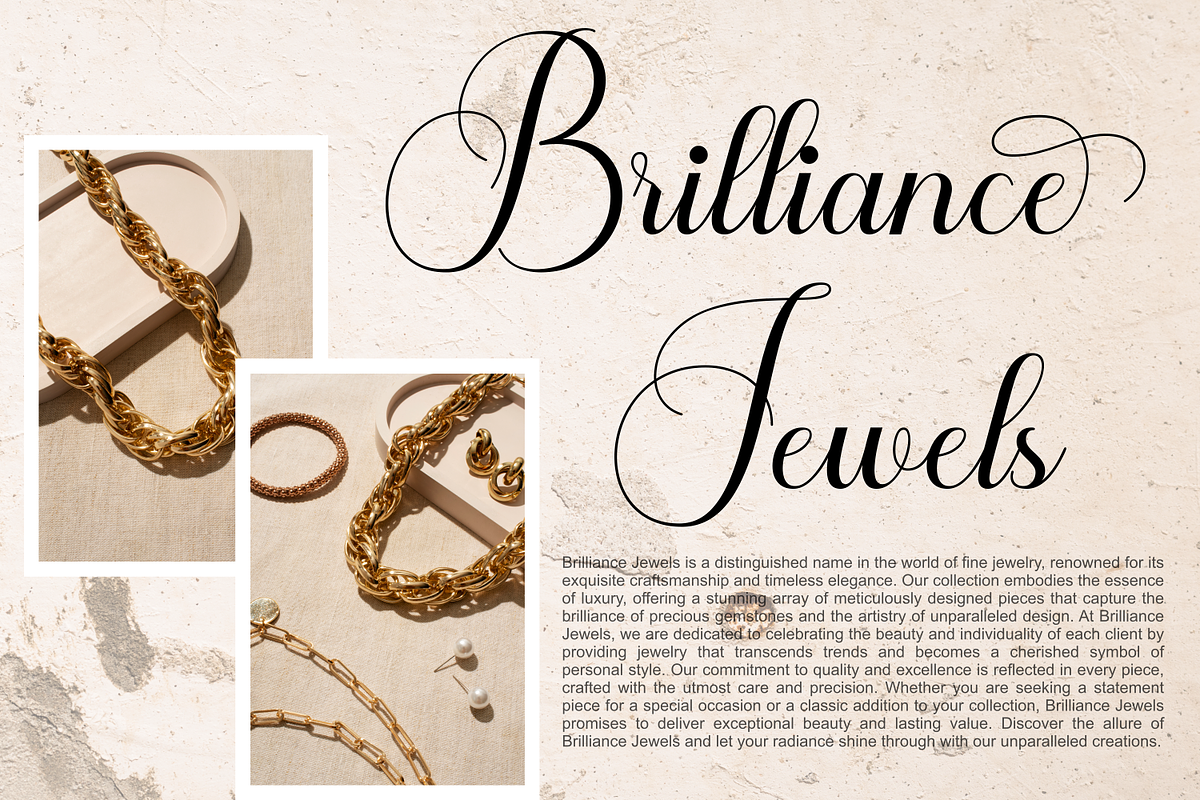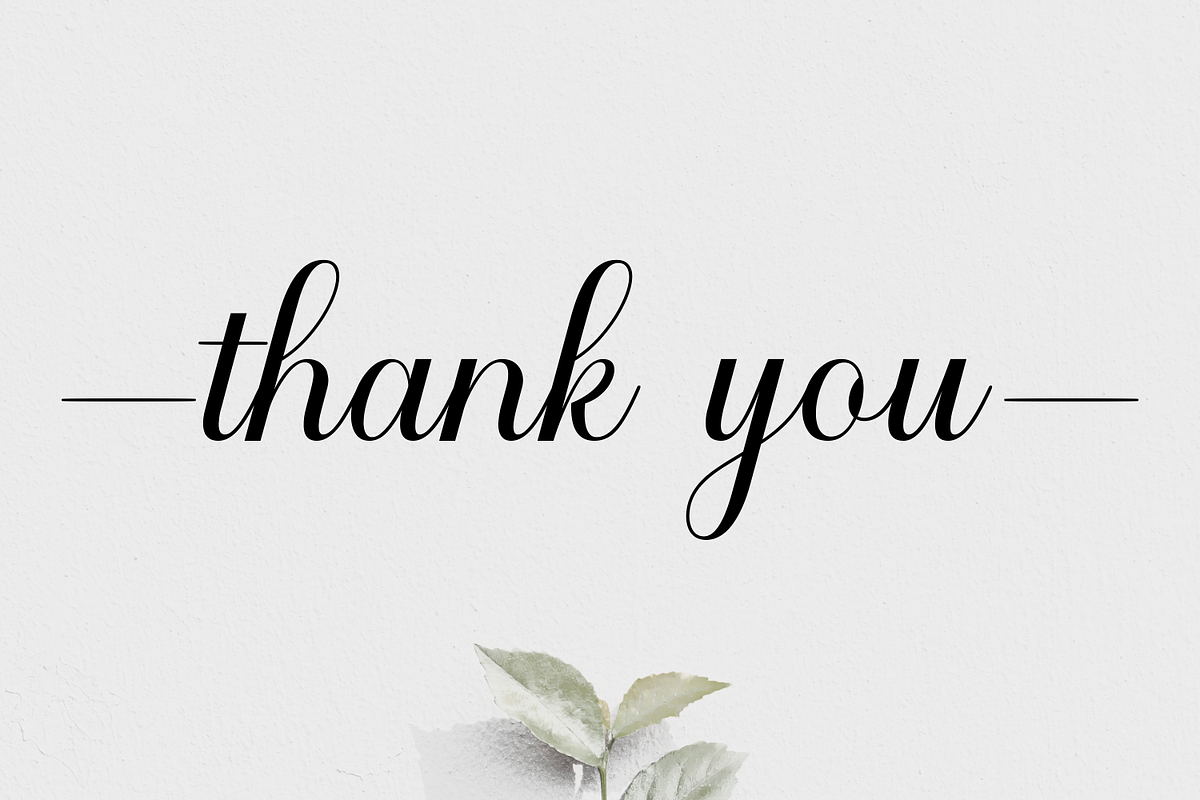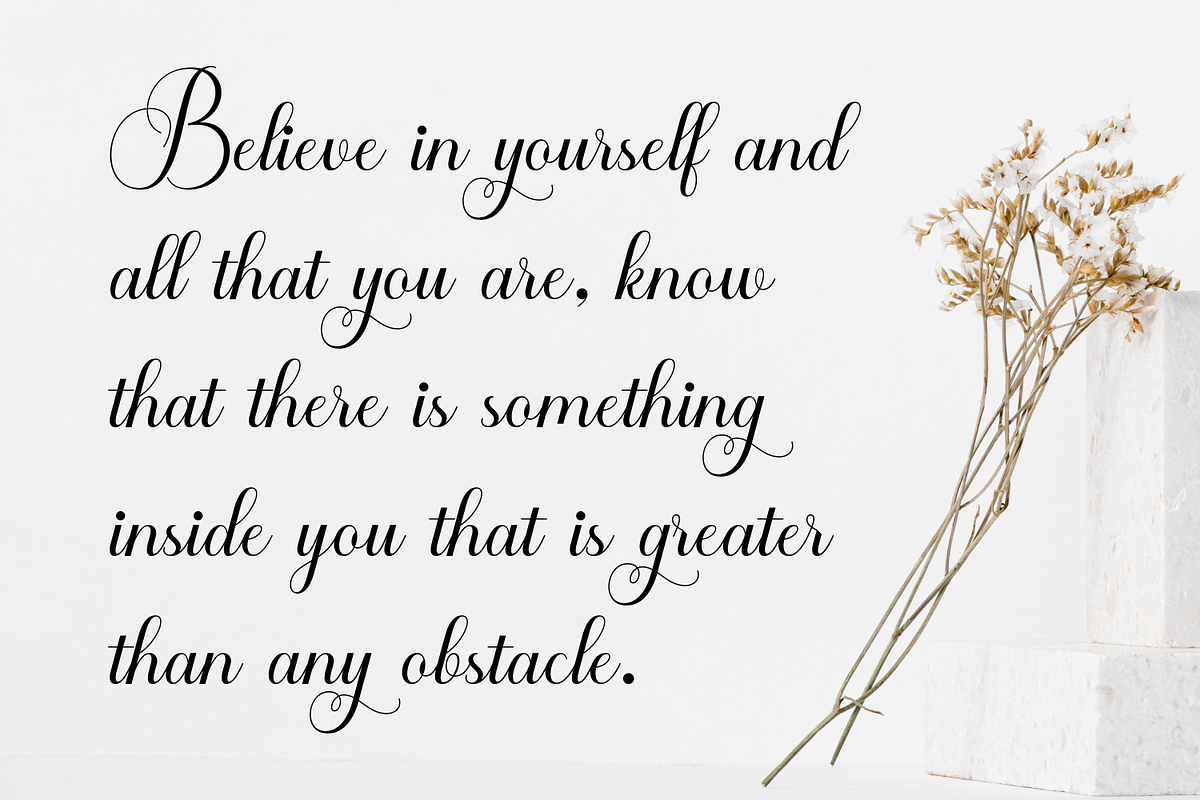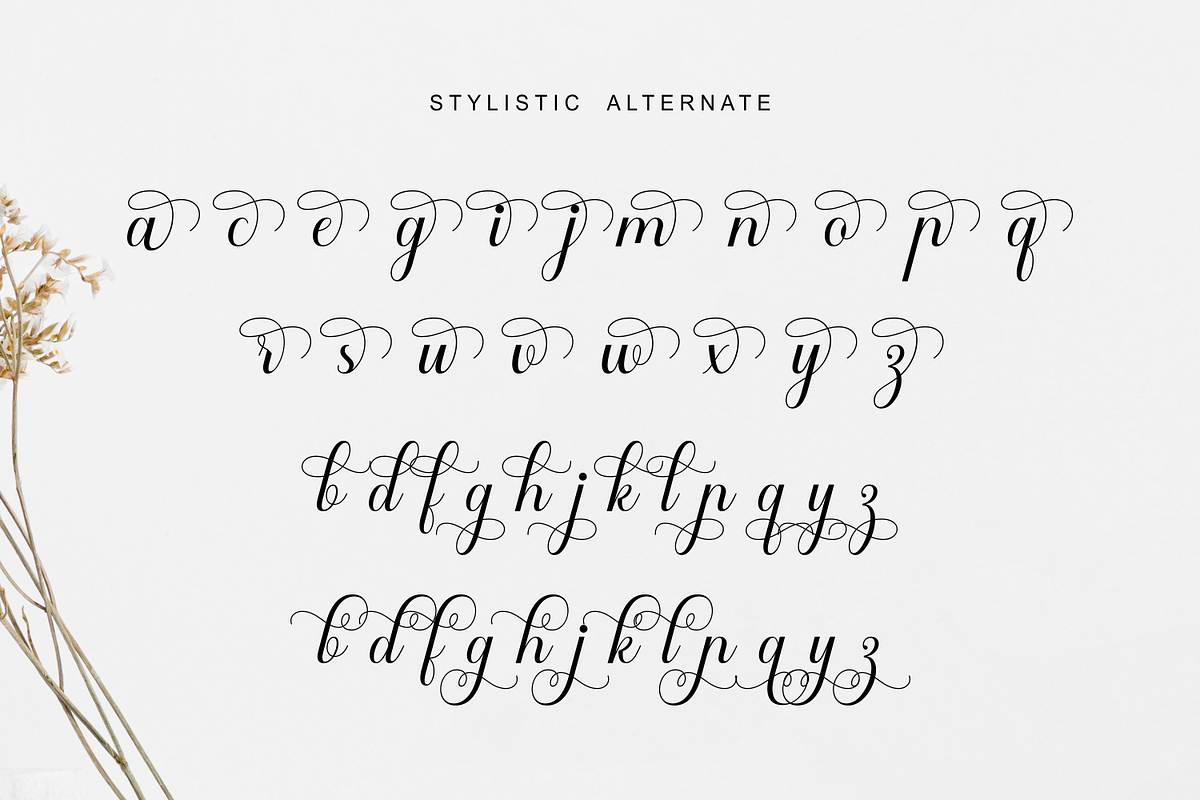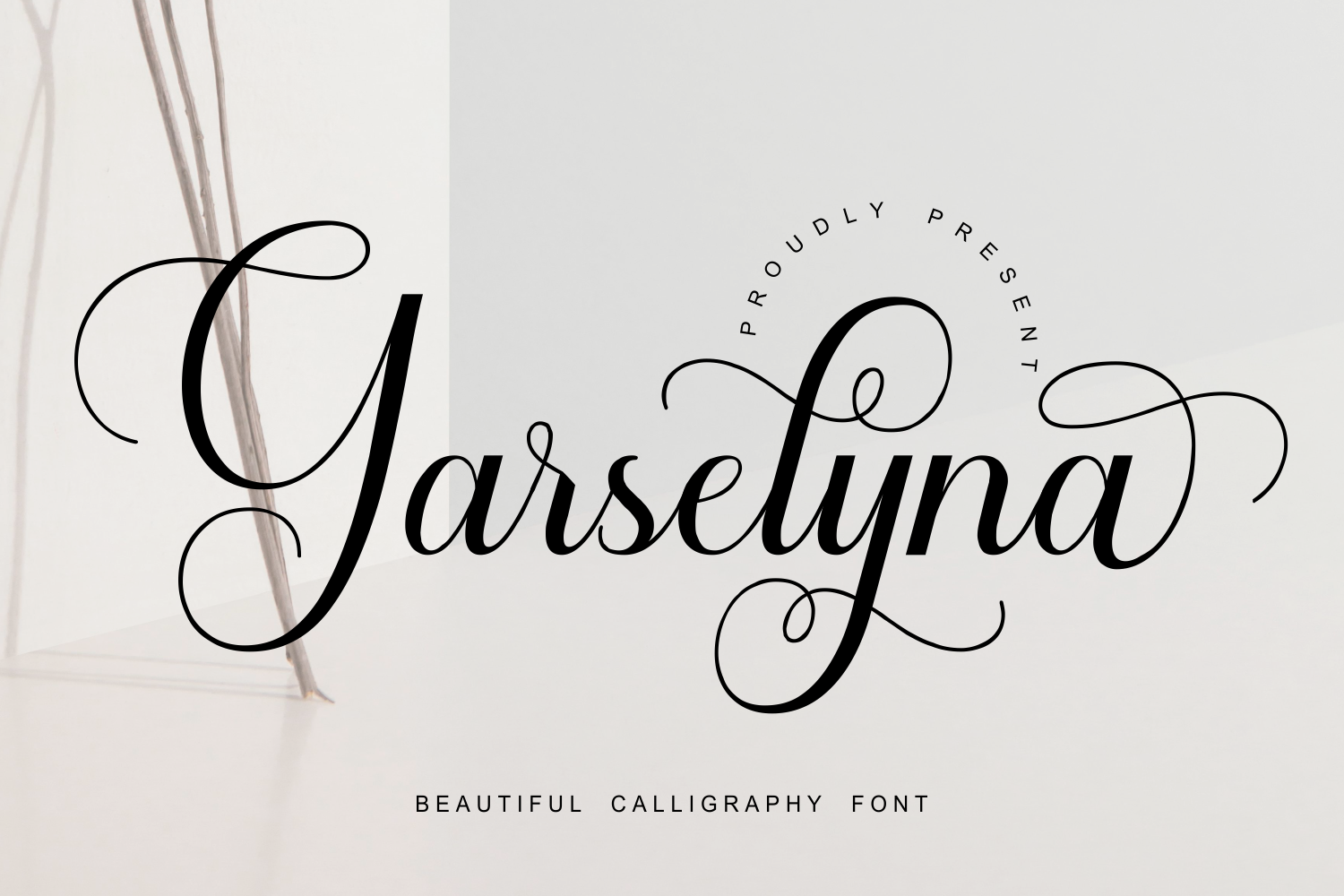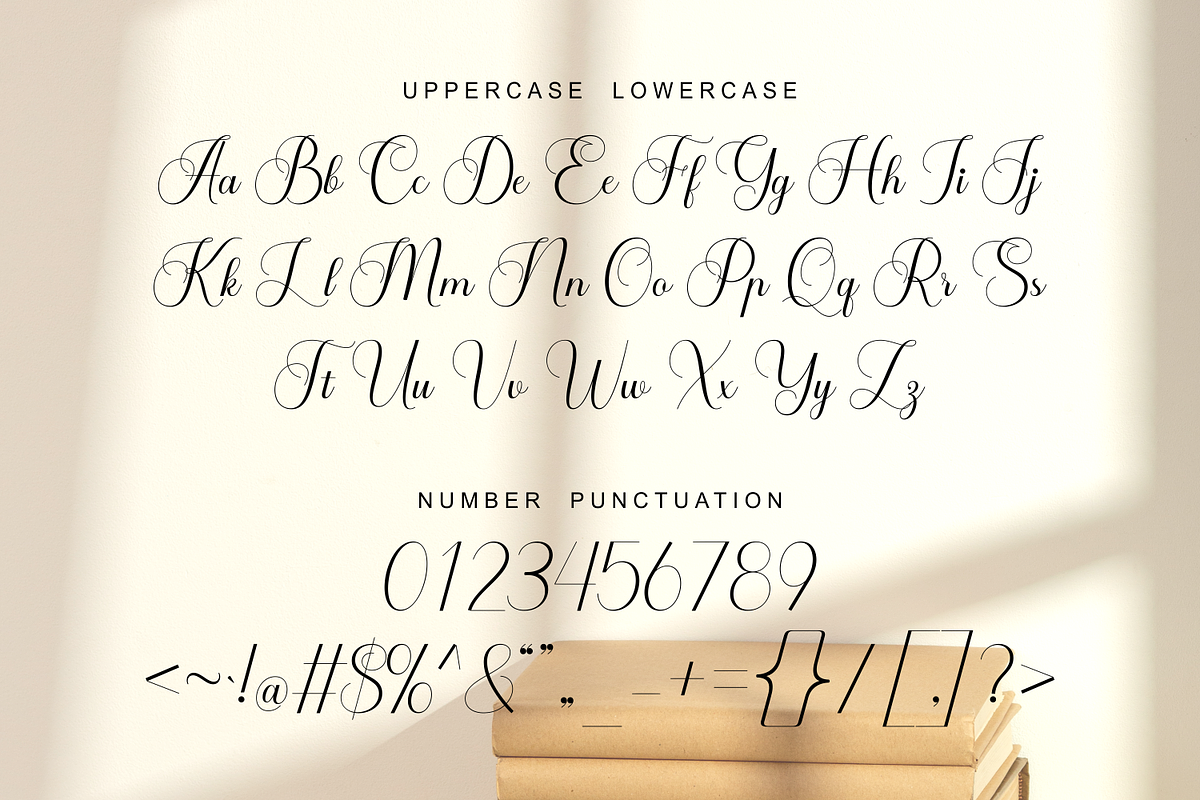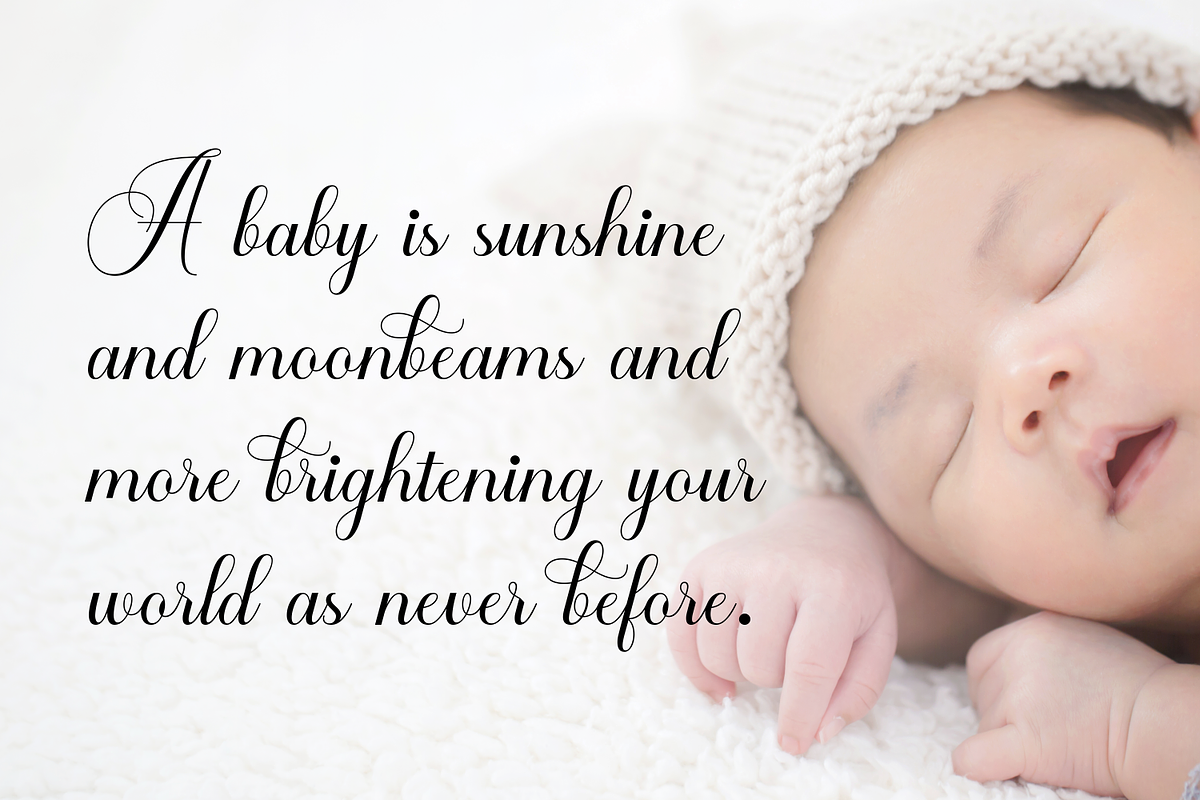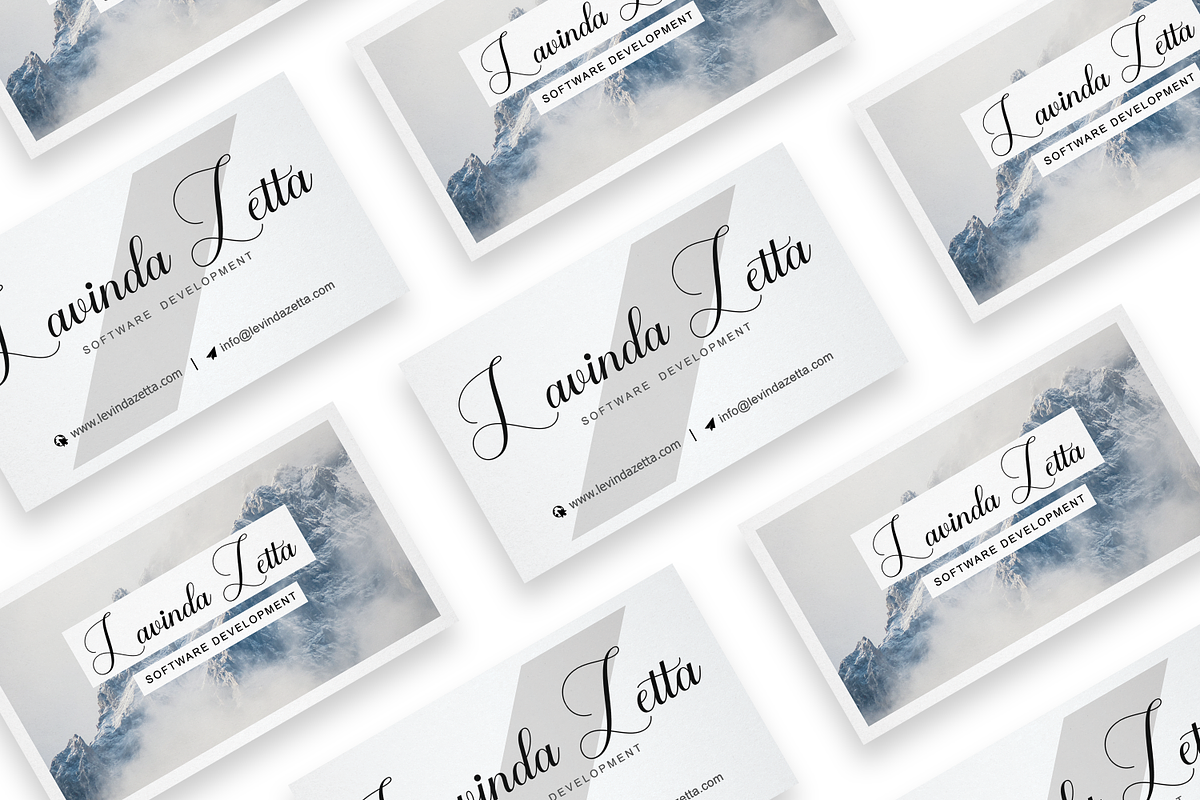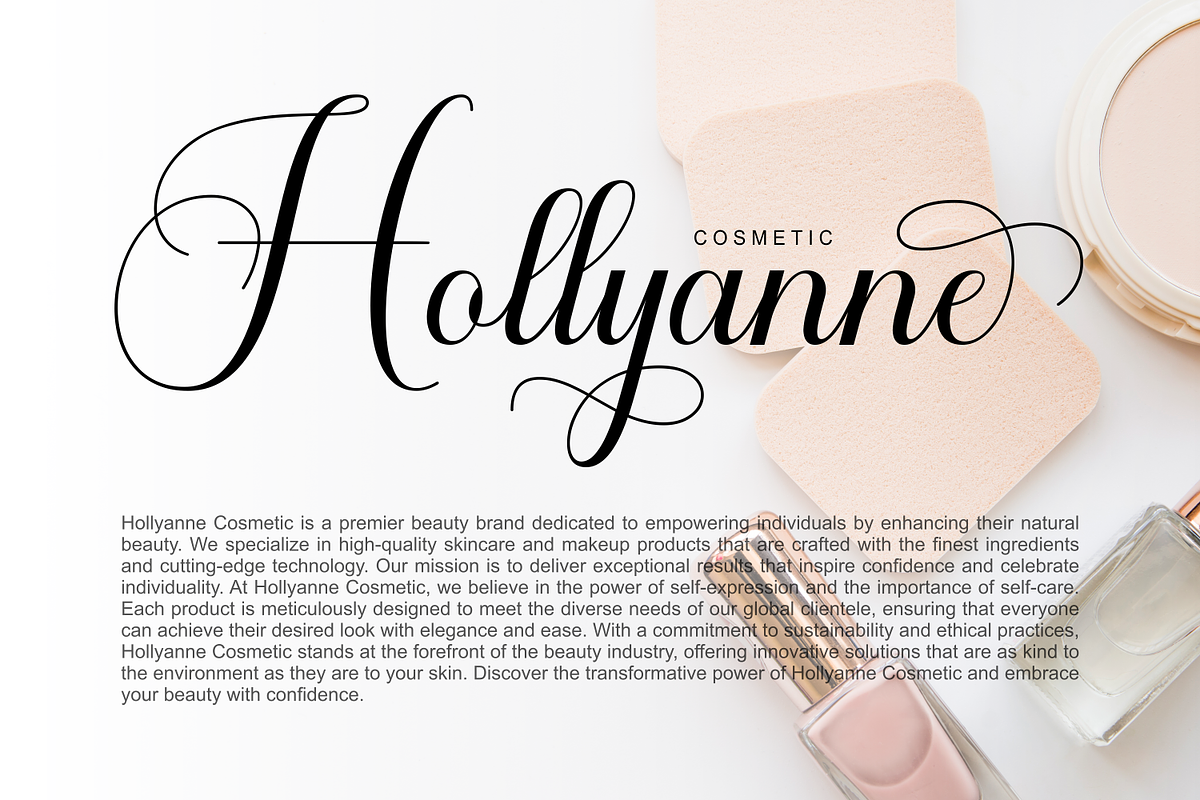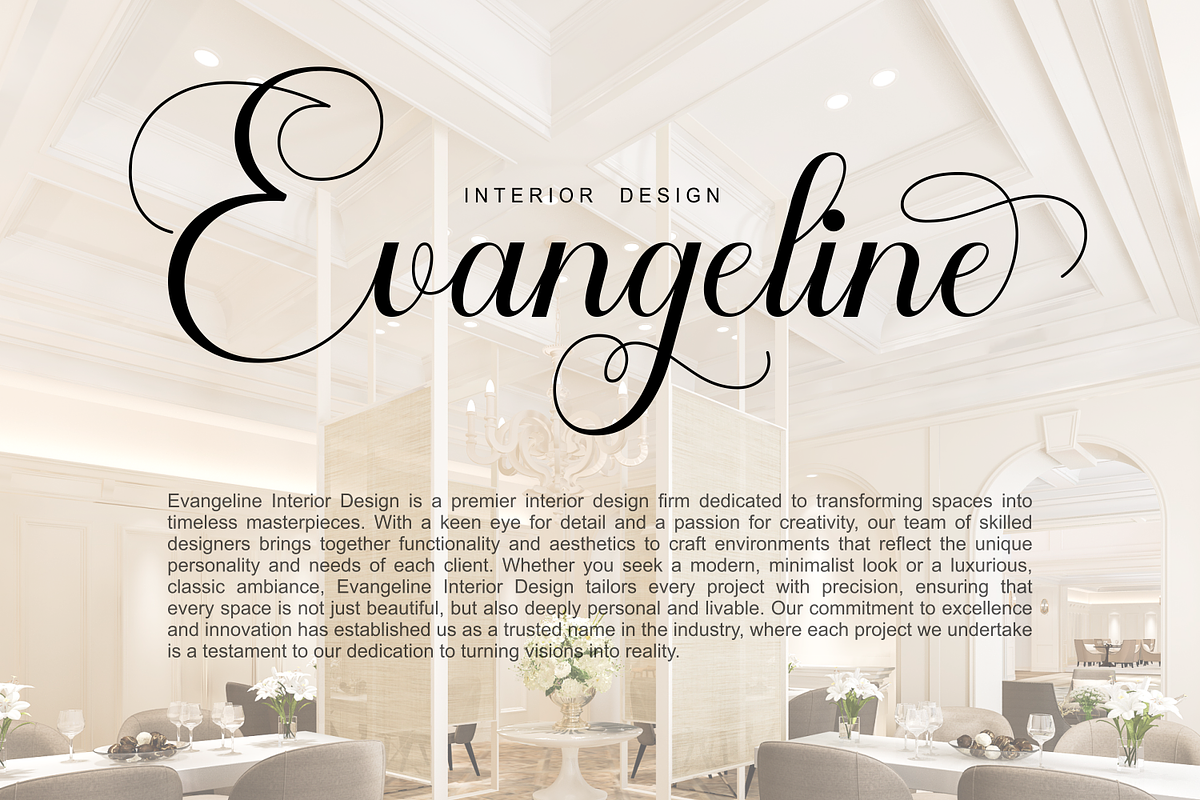
Garselyna - Elegant Calligraphy Font
Garselyna - Elegant Calligraphy Font by Imiftype Studio is a refined and versatile typeface, perfect for elevating any creative project. Whether you're working on logos, branding, home decor designs, product packaging, or creating quotes, posters, and greeting cards, Garselyna adds a touch of luxury and sophistication. Its graceful script is ideal for projects that demand an elegant and polished aesthetic.
- Ligatures & Alternates with Swashes
- Uppercase and Lowercase Letters
- Accents (Multilingual Support)
- Stylistic Sets for Ligatures and Alternate Styles
Why Choose Garselyna? Garselyna is designed to make your projects stand out with a unique luxury script. Its flexibility and range of features allow you to create stunning designs effortlessly, making it the perfect choice for any high-end project.